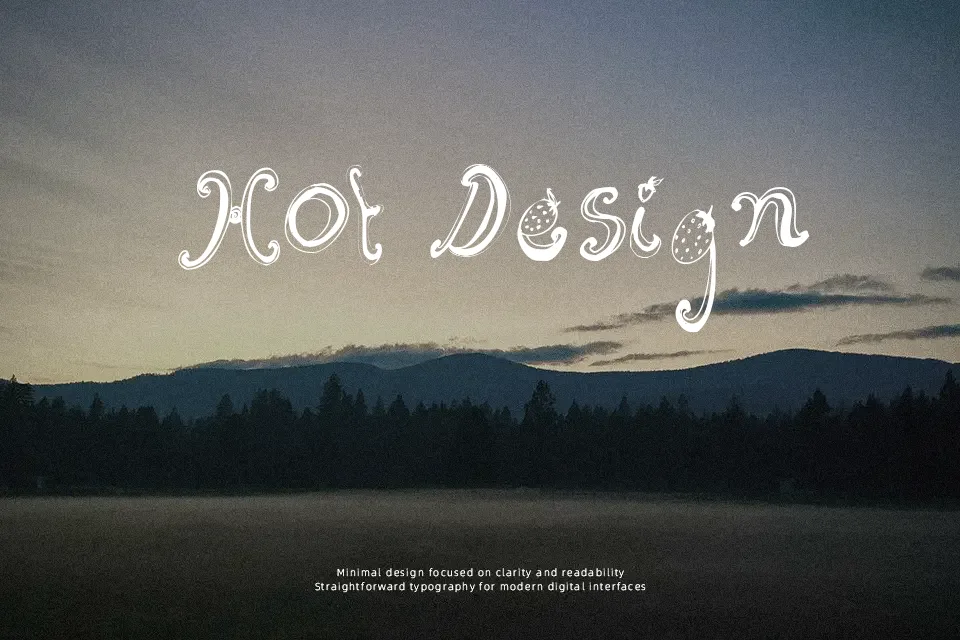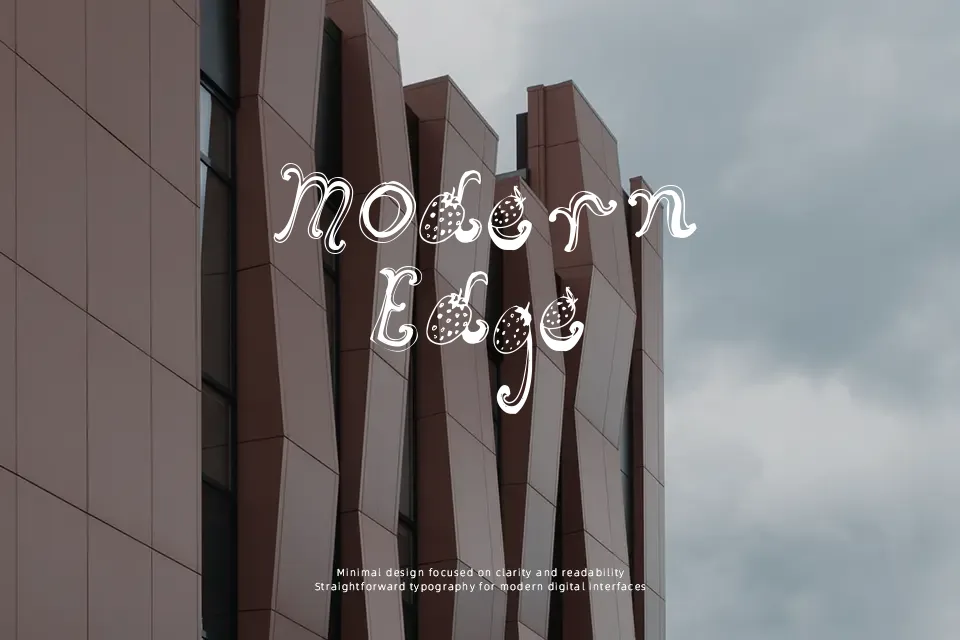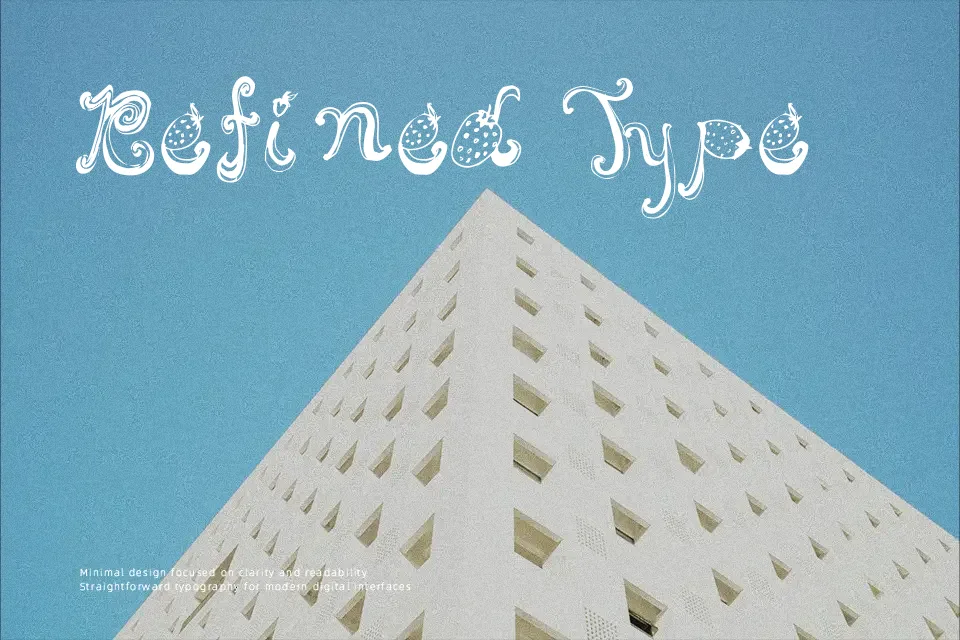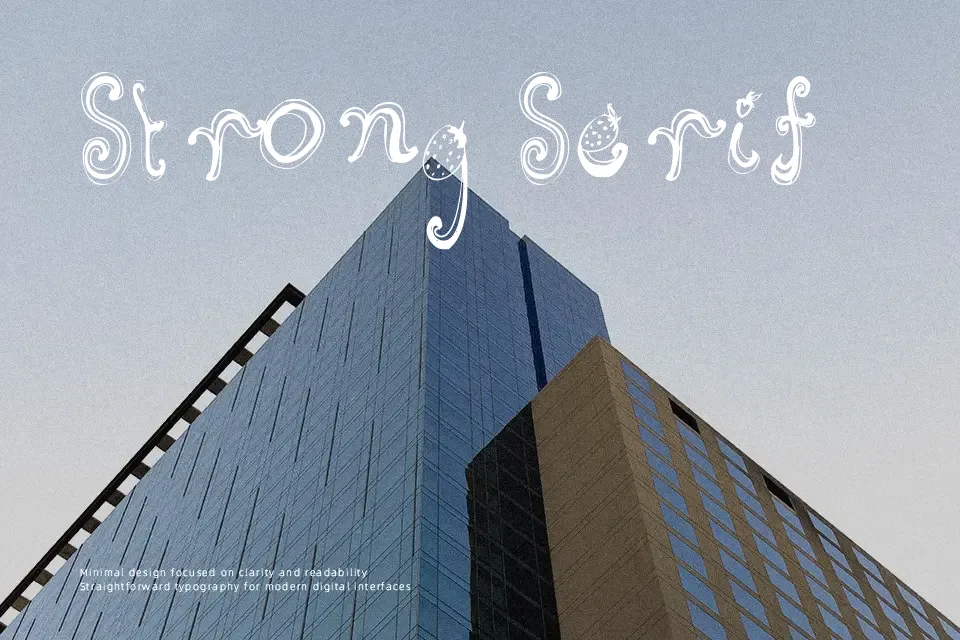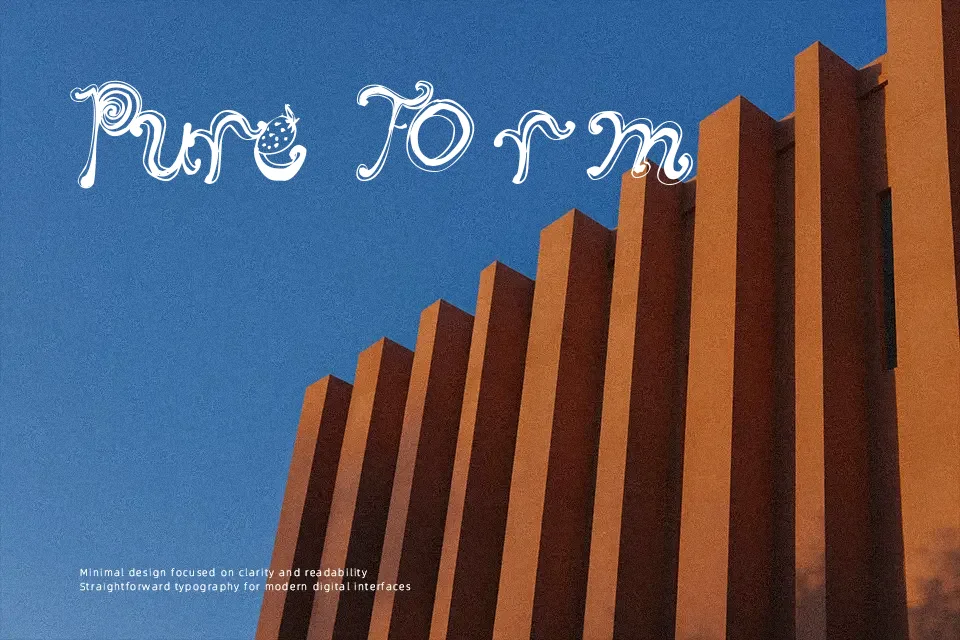
Starberry Swirl Delight Font
Starberry Swirl Delight Font presents a lively decorative structure defined by looping terminals, circular embellishments, and consistent medium stroke weights. The letterforms display open spacing with exaggerated flourishing on key capital glyphs, creating a cheerful visual rhythm across horizontal text lines. In practical use, the typeface excels across bakery branding, dessert menus, novelty product labels, and event flyers where large text sizes allow the ornate details to shine. However, the intricate swirls reduce comfort during extended reading, making the design unsuitable for dense paragraphs or compact user interfaces. Intricate curling strokes remain sharp and legible in prominent headings.
Best For: children’s book covers, dessert packaging labels, birthday party invitations
Not Ideal For: continuous paragraph text, dense editorial layouts, mobile system interfaces
Perfect for headline, invitation, and kids, with a creative and decorative style.